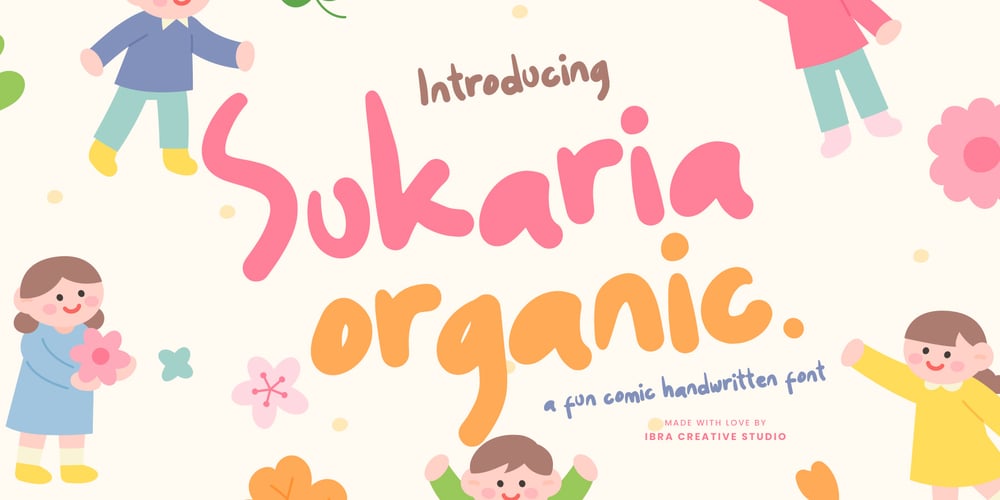
Sukaria Organic
Sukaria Organic font
Sukaria Organic Font Family was designed by Roisatul Azizah and published by IbraCreative. Sukaria Organic contains 1 styles and family package options. Sukaria Organic is a lively and fun handwritten font that embodies a sense of organic whimsy. With its carefree and slightly irregular strokes, Sukaria Organic captures the authenticity of hand-drawn lettering. Each character dances with a joyful bounce, invoking an aura of spontaneity and creativity. The font’s organic texture and playful curves make it a perfect choice for projects that seek a touch of natural charm and carefree spirit, such as eco-friendly branding, handmade product labels, and cheerful invitations. Sukaria Organic brings an infectious sense of joy to any design, ensuring that its delightful personality shines through, celebrating the beauty of imperfection and the allure of the handwritten touch.